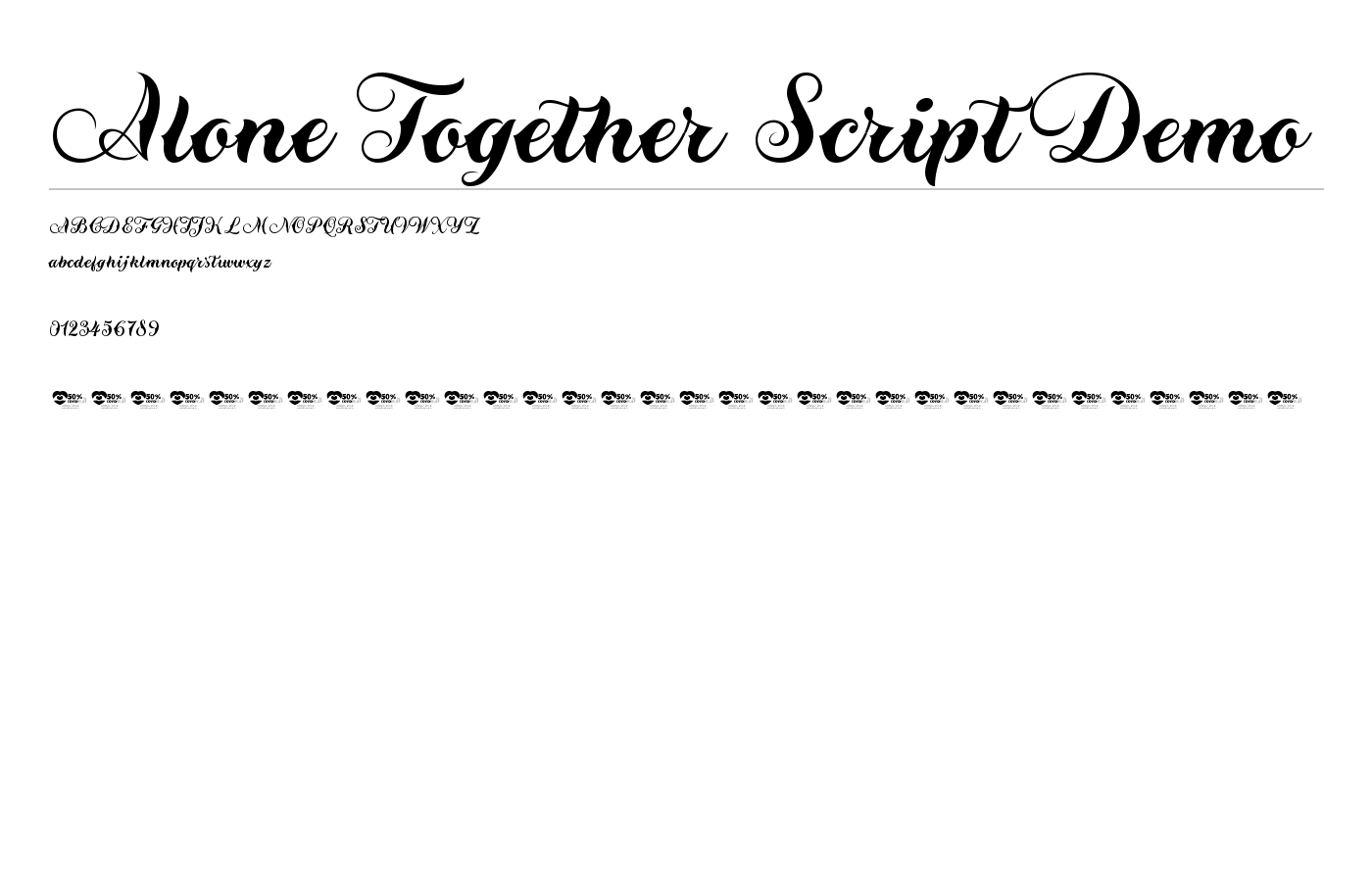
Alone Together Script Demo is an elegant and decorative script font with flowing, connected letterforms and flourished swashes that create a sophisticated, graceful feel. Its high contrast strokes and ornate details make it perfect for luxury branding, invitations, and headlines where a refined, classic touch is desired. This font adds a romantic and artistic flair to designs, ideal for fashion, wedding, and upscale editorial uses.
Alone Together Script Demo Font
About Alone Together Script Demo Font